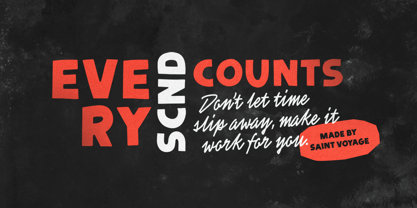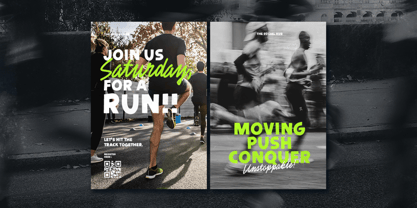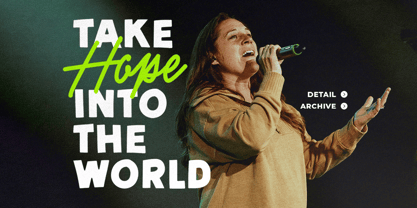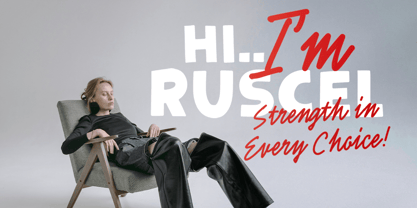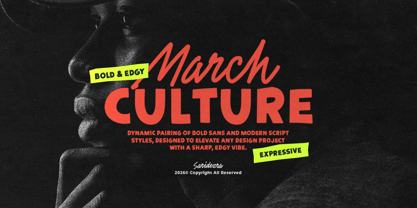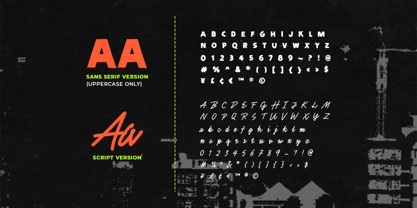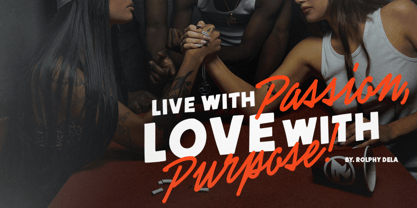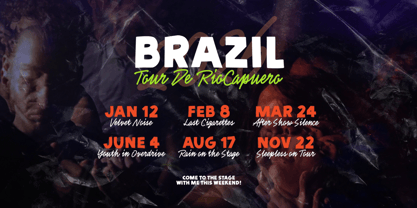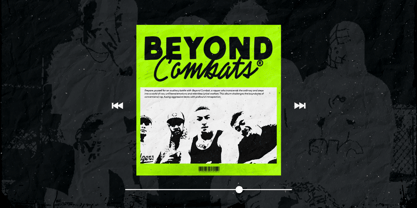
March Culture
by Sarid Ezra
The March Culture Font Family was designed by Sarid Ezra and published by Sarid Ezra. March Culture contains 2 styles and family package options. More about this family
March Culture is an edgy and expressive font duo that comes with bold sans and modern handwritten script. You can use this fonts to make a poster, quotes, logotype, branding, and any other fancy project. The sans and the script in this package complementary each other and will make your designs look stand out. This font duo also support multi language!